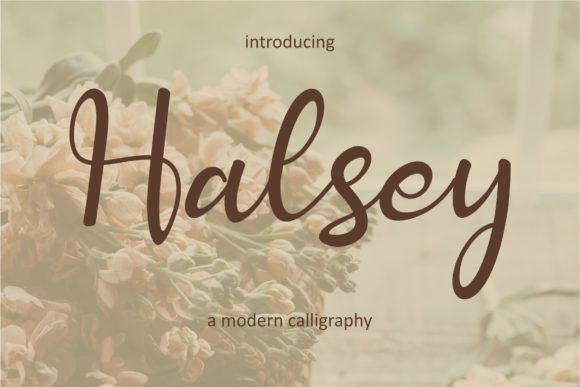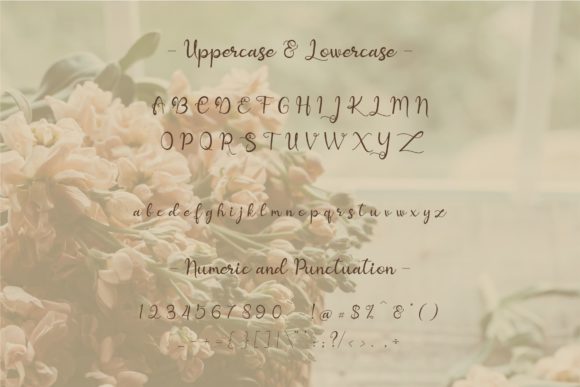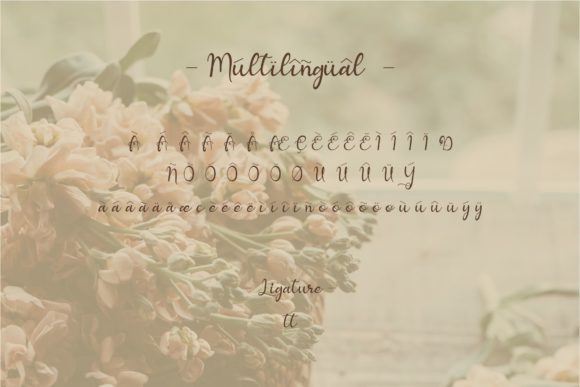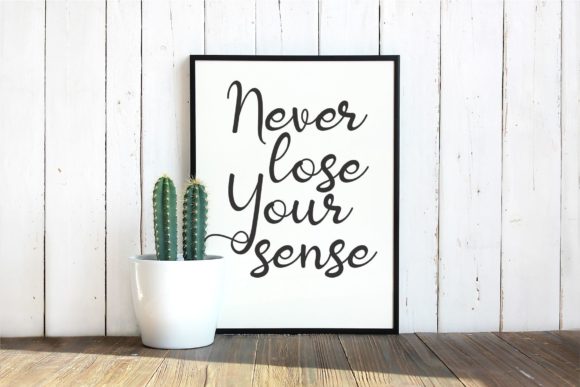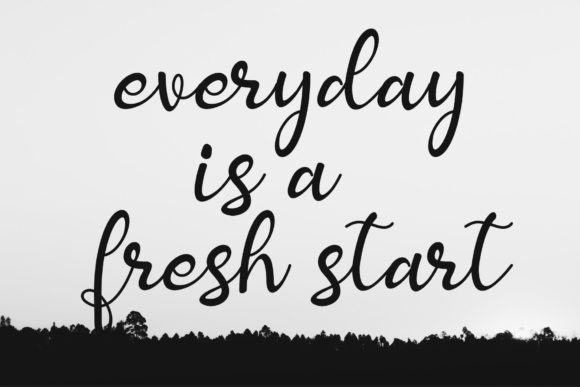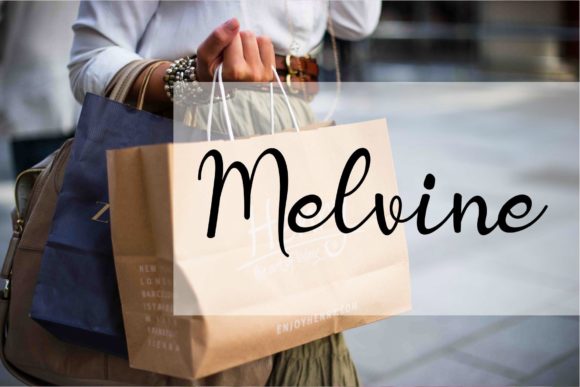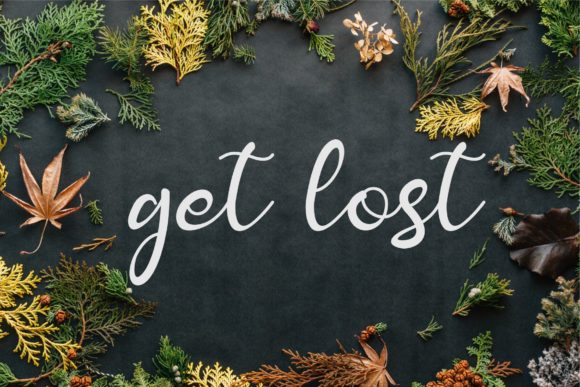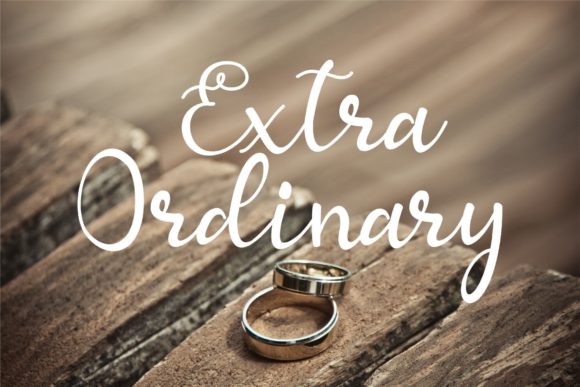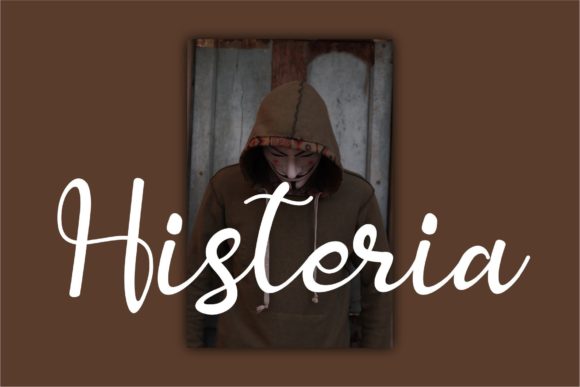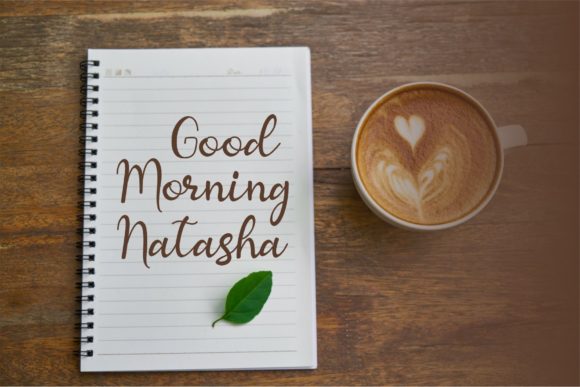
Halsey Font
About Halsey Font
Halsey is a beautiful modern script font. Elegant and stylish, looks beautiful on wedding invitations, thank you cards, quotes, greeting cards,
logos, business cards and more.